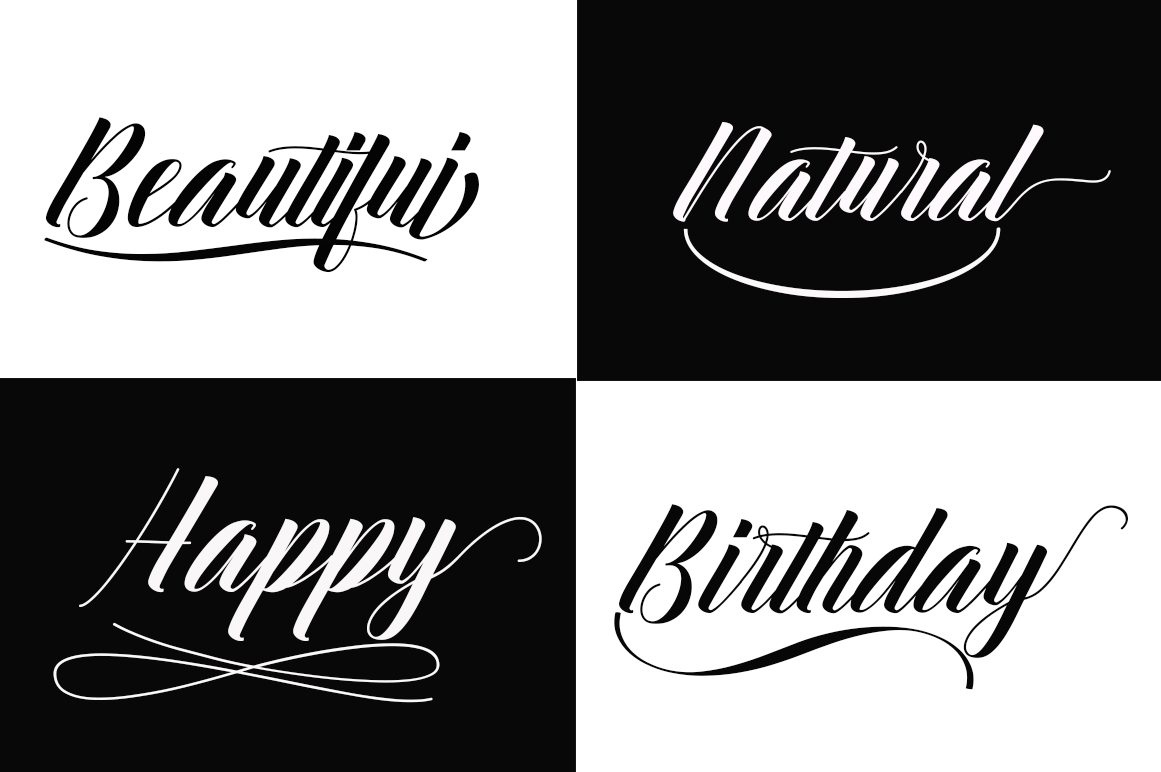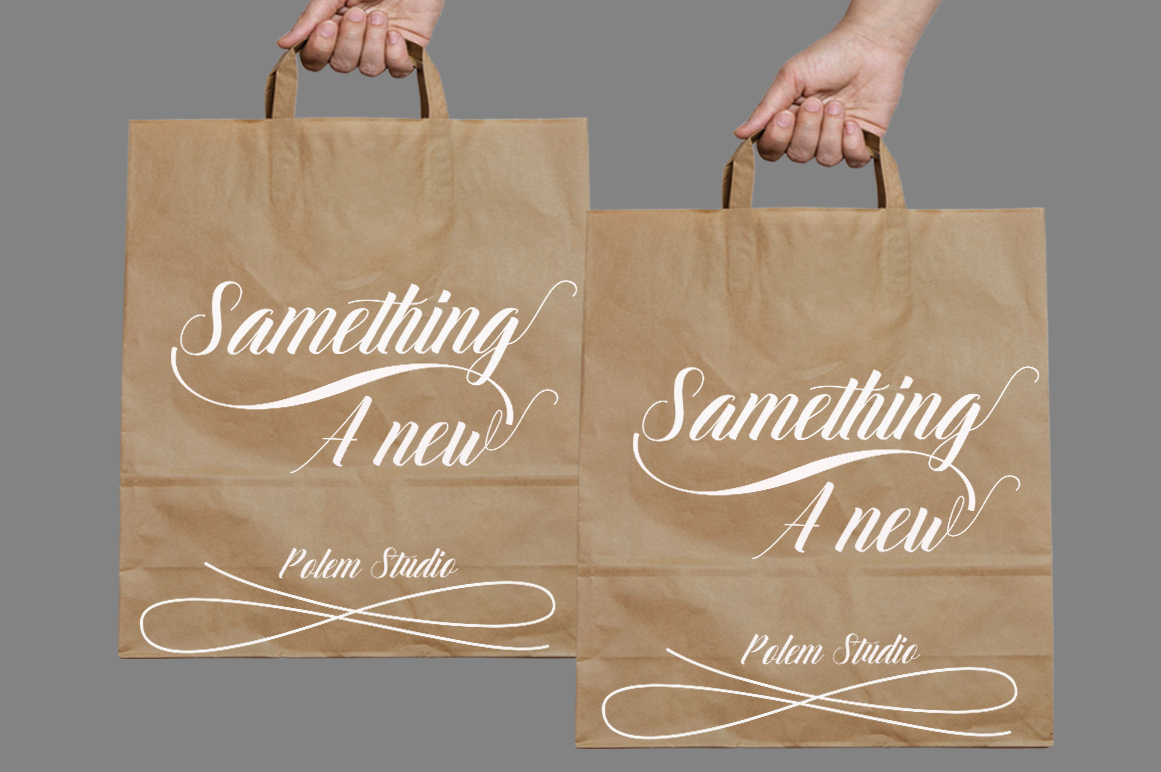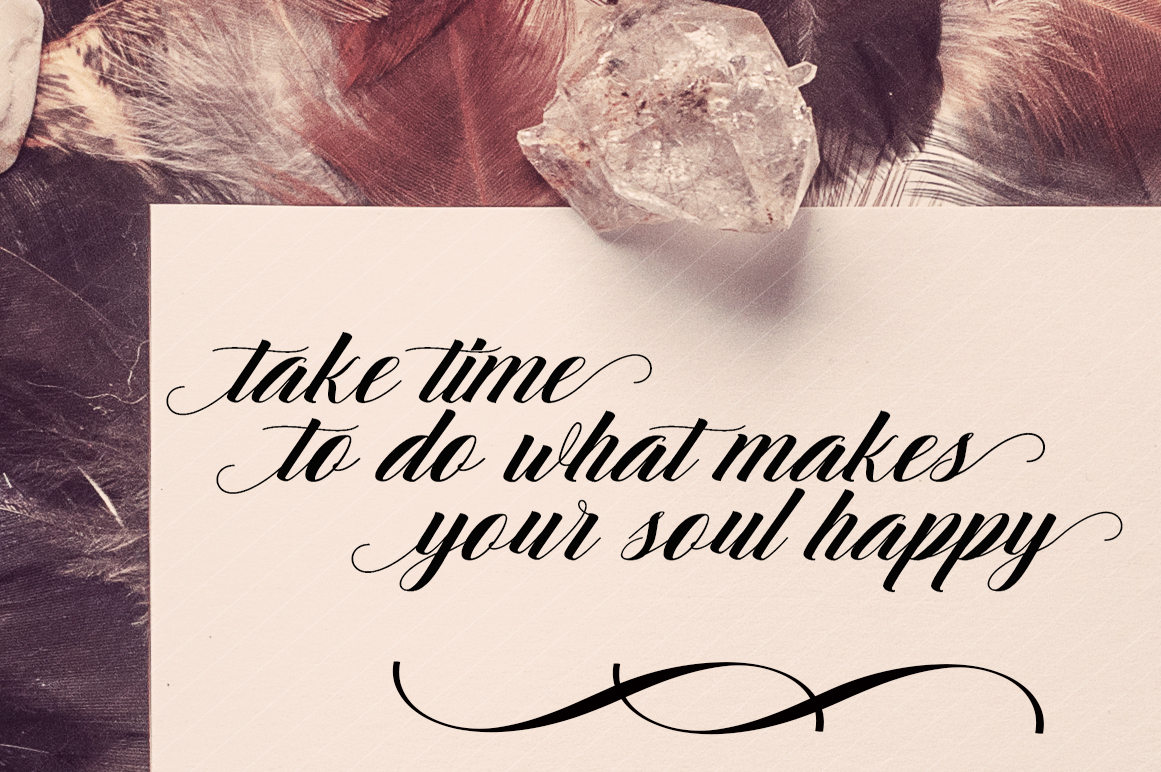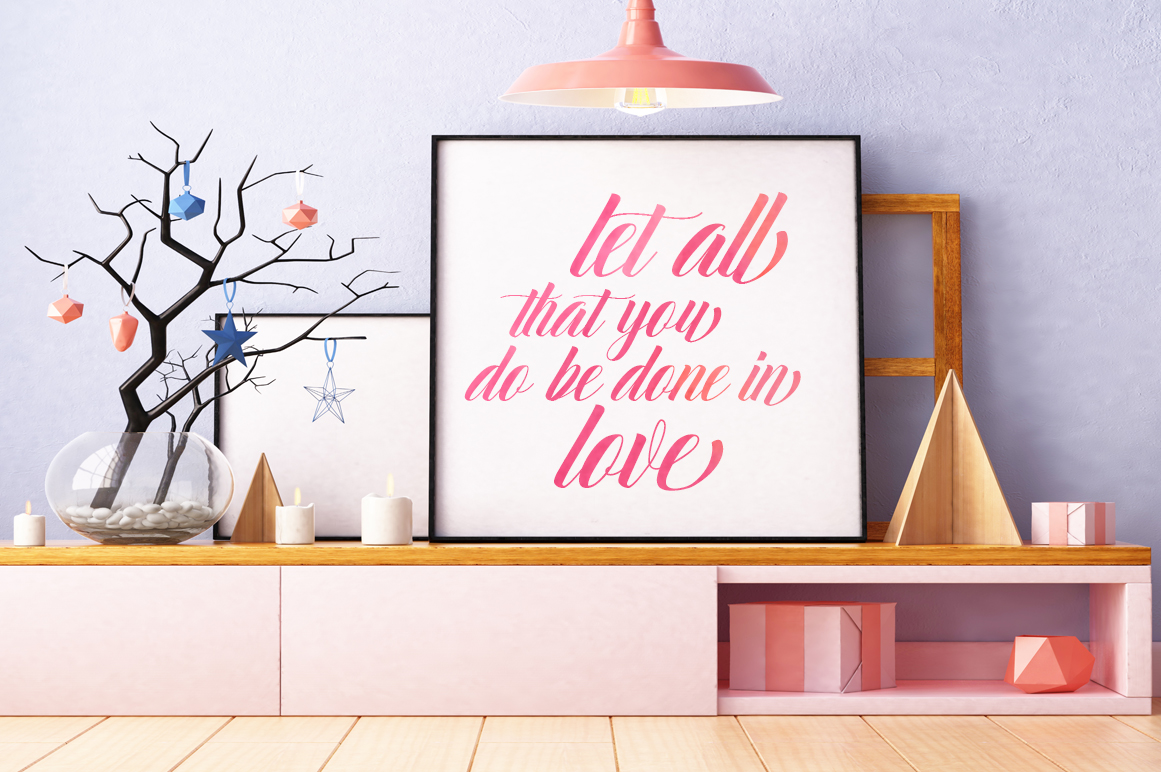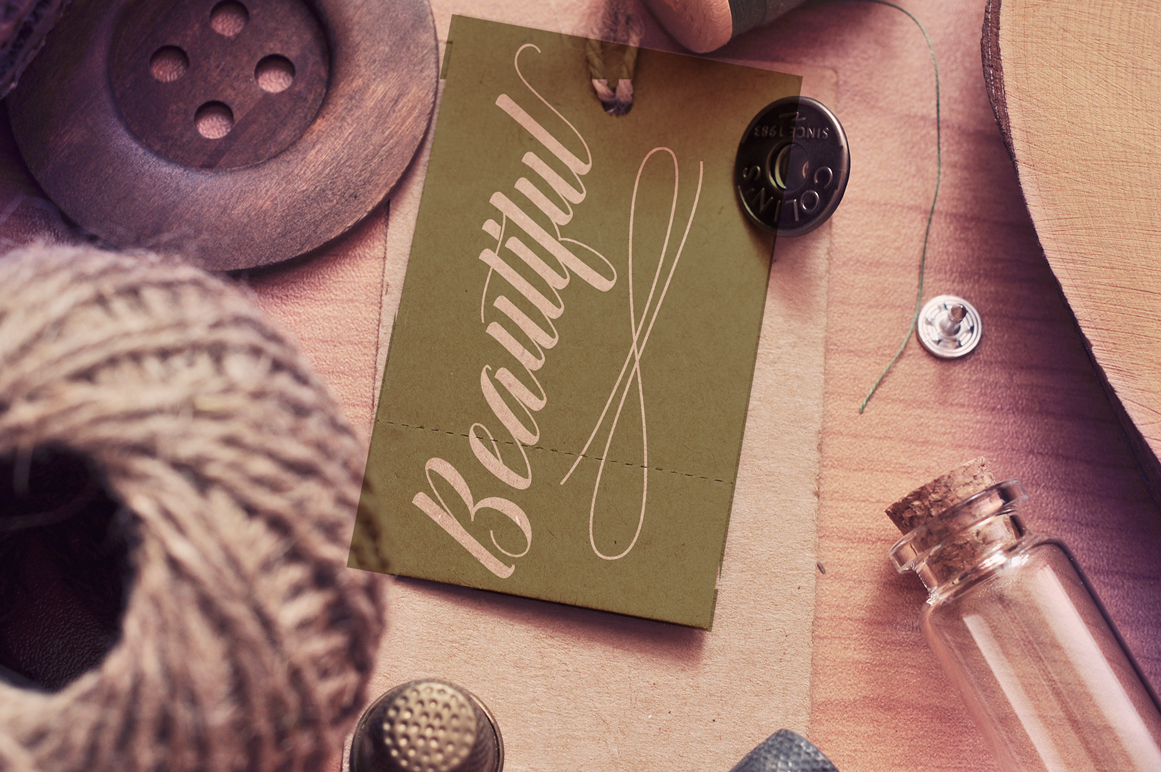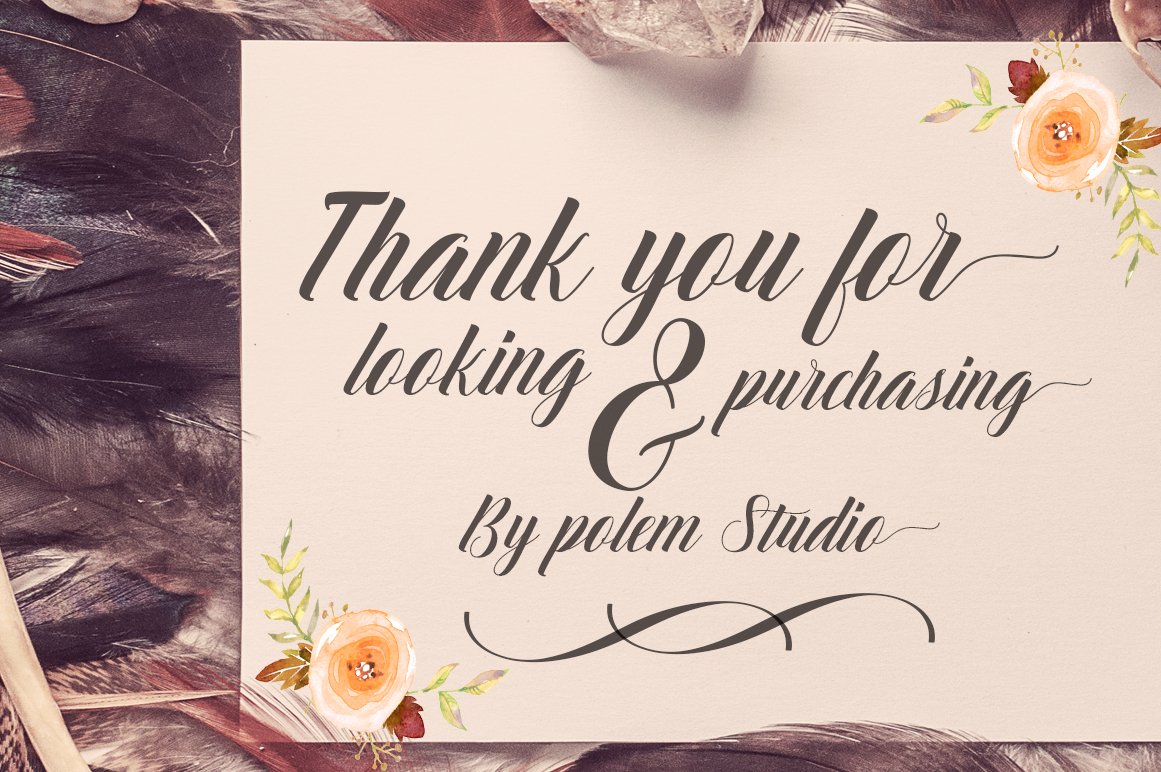
Introduction to Chietah Font
Have you ever stared at a blank page, eager to bring your creative vision to life, only to be halted by the perfect font eluding you? This is where the magic of Chietah Font comes in – a stunning, stylish handwritten calligraphy font designed to elevate your creative projects and leave a lasting impression.
With its extensive library of 404 unique glyphs, Chietah Font offers an unparalleled level of detail and sophistication, making it the perfect design resource for designers and artists alike. From initial and terminal letters to alternates, ligatures, and support for multiple languages, this high-quality font is sure to take your designs to the next level. Whether you’re working on a logo, a website, or a social media campaign, Chietah Font is the perfect addition to your toolkit.
Key Features of Chietah Font
- Chietah Font offers a unique, modern aesthetic with a transparent background, making it perfect for overlaying on images and graphics.
- Features a clean, minimalist design that is easily readable in both digital and print formats.
- Perfect for use in logos, branding materials, and other creative projects where a unique, high-quality font is required.
Honest Review: Chietah Font
As a designer, I’m always on the lookout for high-quality design resources that can elevate my creative projects. The Chietah Font is one such resource that caught my attention.
- ✨ High-quality font with clean and modern lines, perfect for creating visually appealing designs.
- ✨ Transparent background, making it easy to use in various design contexts.
- ⚠️ Limited font weights and styles, which might not be ideal for complex design projects.
- ⚠️ Not ideal for use in small text sizes, as it may become difficult to read.
Overall, I’m impressed with the Chietah Font, but I do wish it had more font weights and styles to offer. Nevertheless, it’s a great resource for designers who need a clean and modern font for their creative projects.
Use Chietah Font in combination with other design elements, such as graphics and images, to create visually appealing designs. Experiment with different font sizes and colors to add depth and interest to your design.